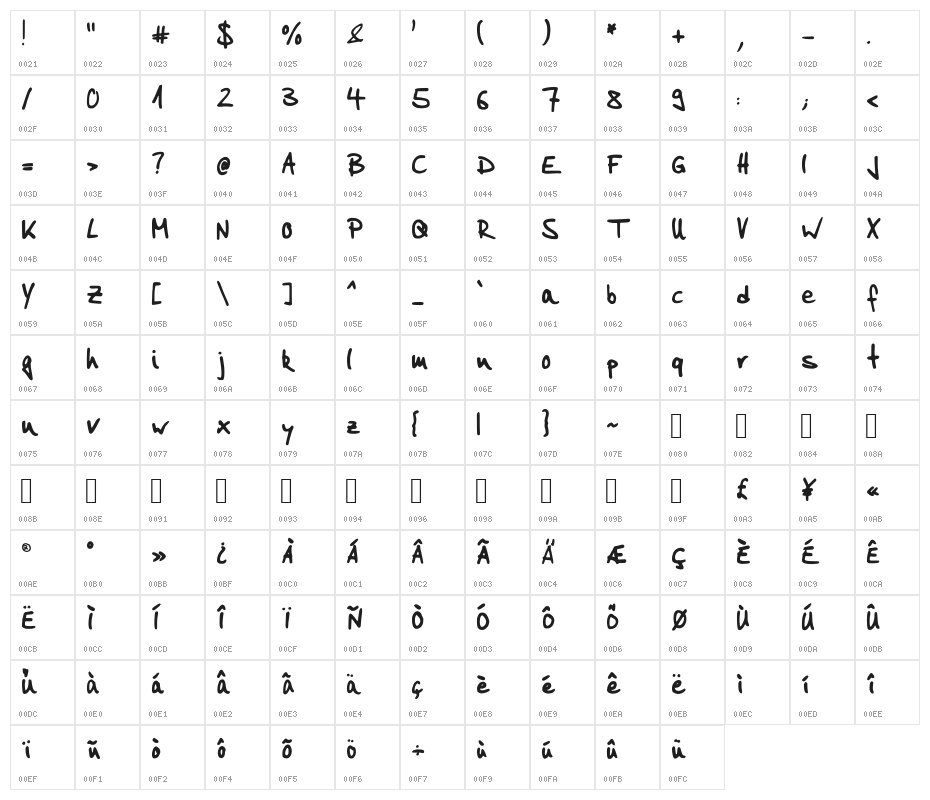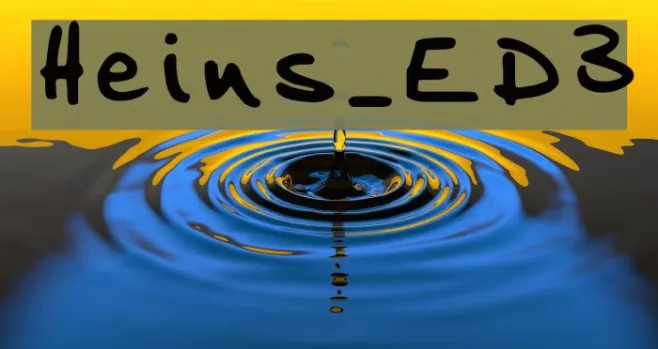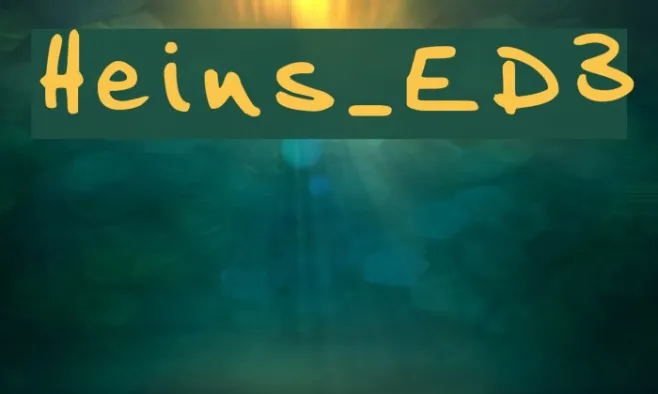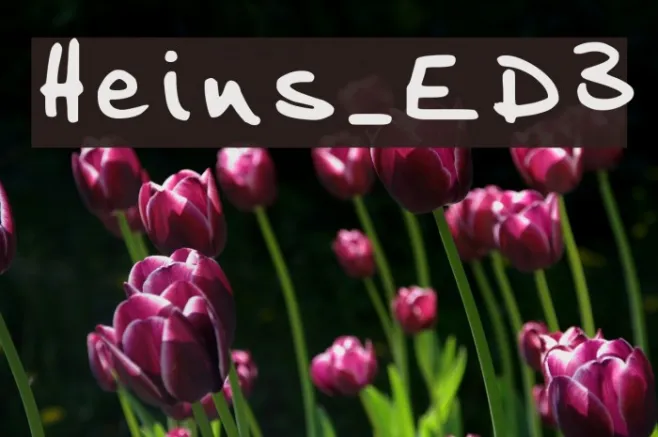
Heins_ED3 Font
Heins_ED3 Description
This font features a playful and informal handwritten style, characterized by its irregular and slightly slanted letterforms. The strokes are bold and have a casual, friendly appearance, making it suitable for projects that require a personal touch. The uppercase and lowercase letters are distinct, with a noticeable difference in size and shape. The numbers and special characters maintain the same playful aesthetic, ensuring consistency across all elements. The overall design is approachable and lively, ideal for creative and informal applications.
| Use Case | Logos, Headlines, Informal Text |
| Proposed Projects | Ideal for greeting cards, children's books, casual branding, and social media graphics. |